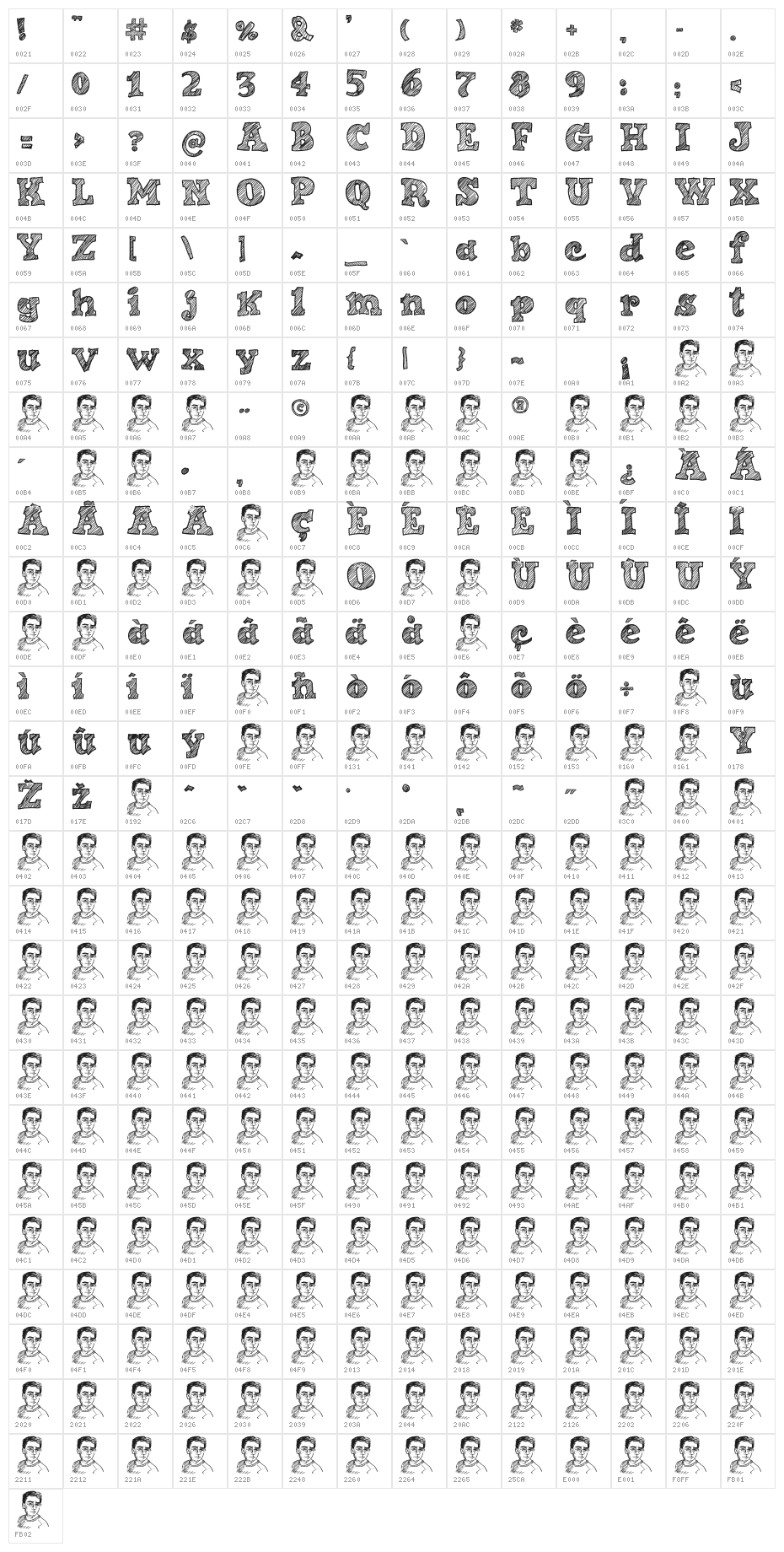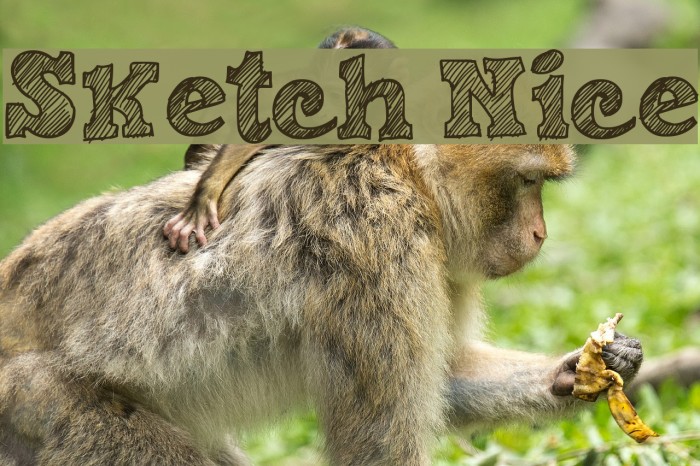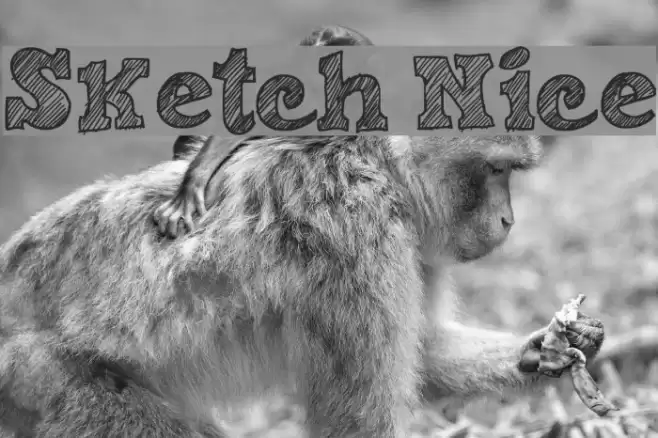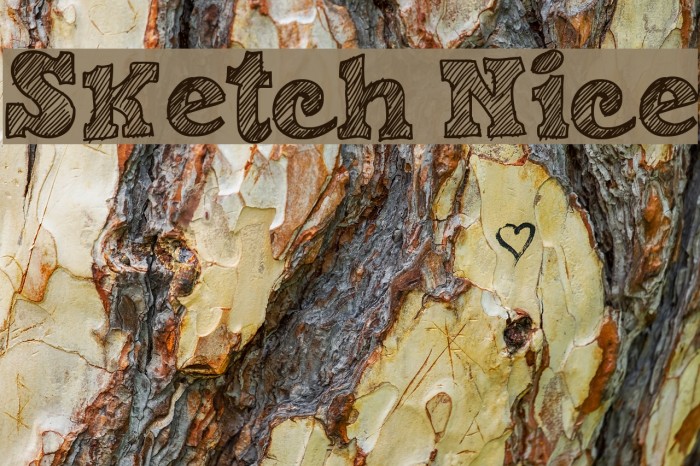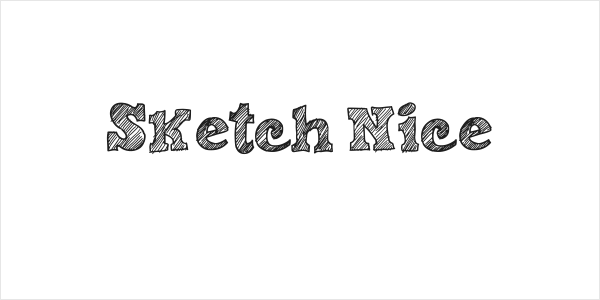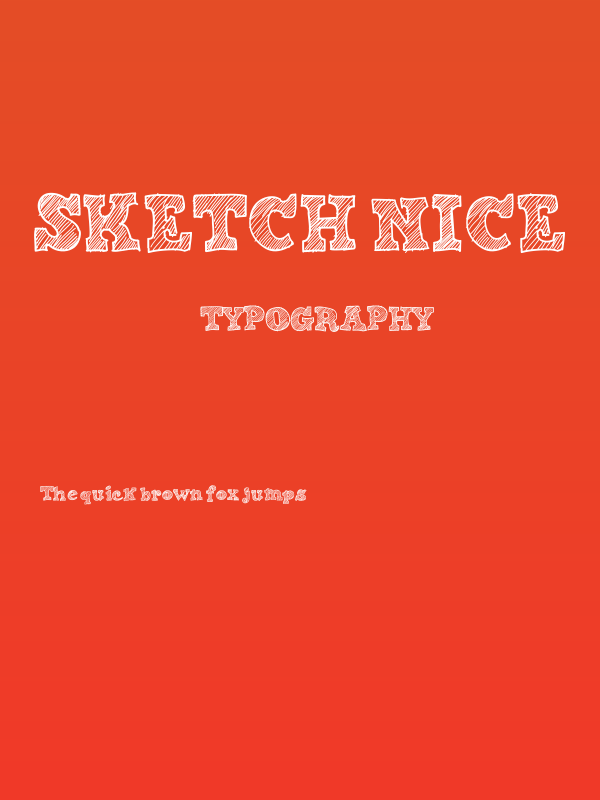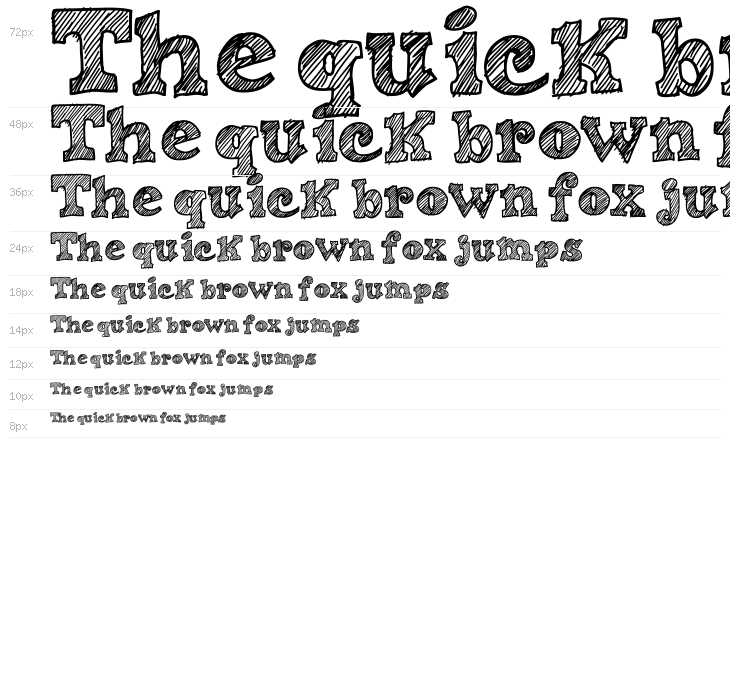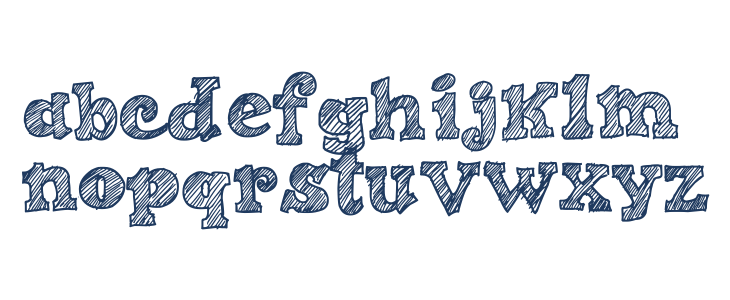
Sketch Nice Font
Sketch Nice Description
This font features a playful and artistic sketch style, characterized by its hand-drawn appearance. Each letter is filled with diagonal lines, giving it a textured, shaded look. The bold and chunky letterforms are reminiscent of doodles or comic book art, making it stand out with a unique personality. The uppercase and lowercase letters maintain a consistent style, while the numbers and special characters follow the same sketchy theme. This font exudes creativity and is perfect for projects that require a fun and informal touch.
| Proposed Projects | Ideal for children's books, comic strips, playful branding, and creative posters. |